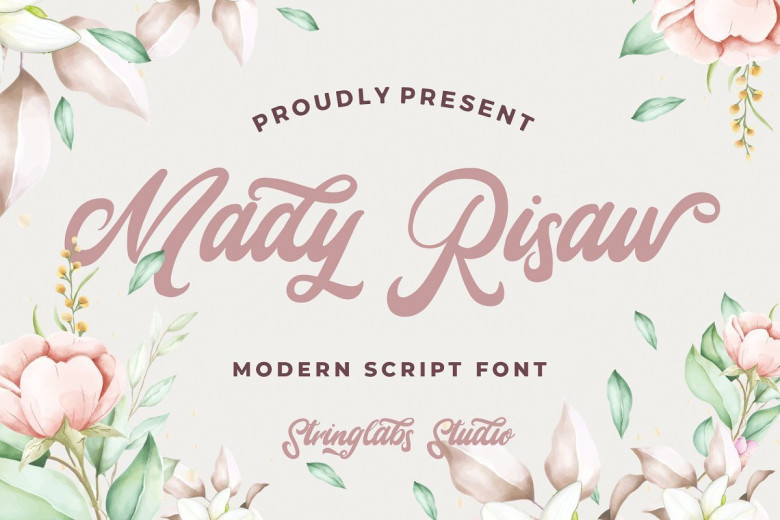
Mady Risaw Modern Script Font
Introducing Mady Risaw – Modern Script Font, Mady Risaw is a delicate, elegant and flowing handwritten font. It has beautiful and well balanced characters and as a result, it matches a wide pool of designs. Add it to your most creative ideas and notice how it makes them come alive!